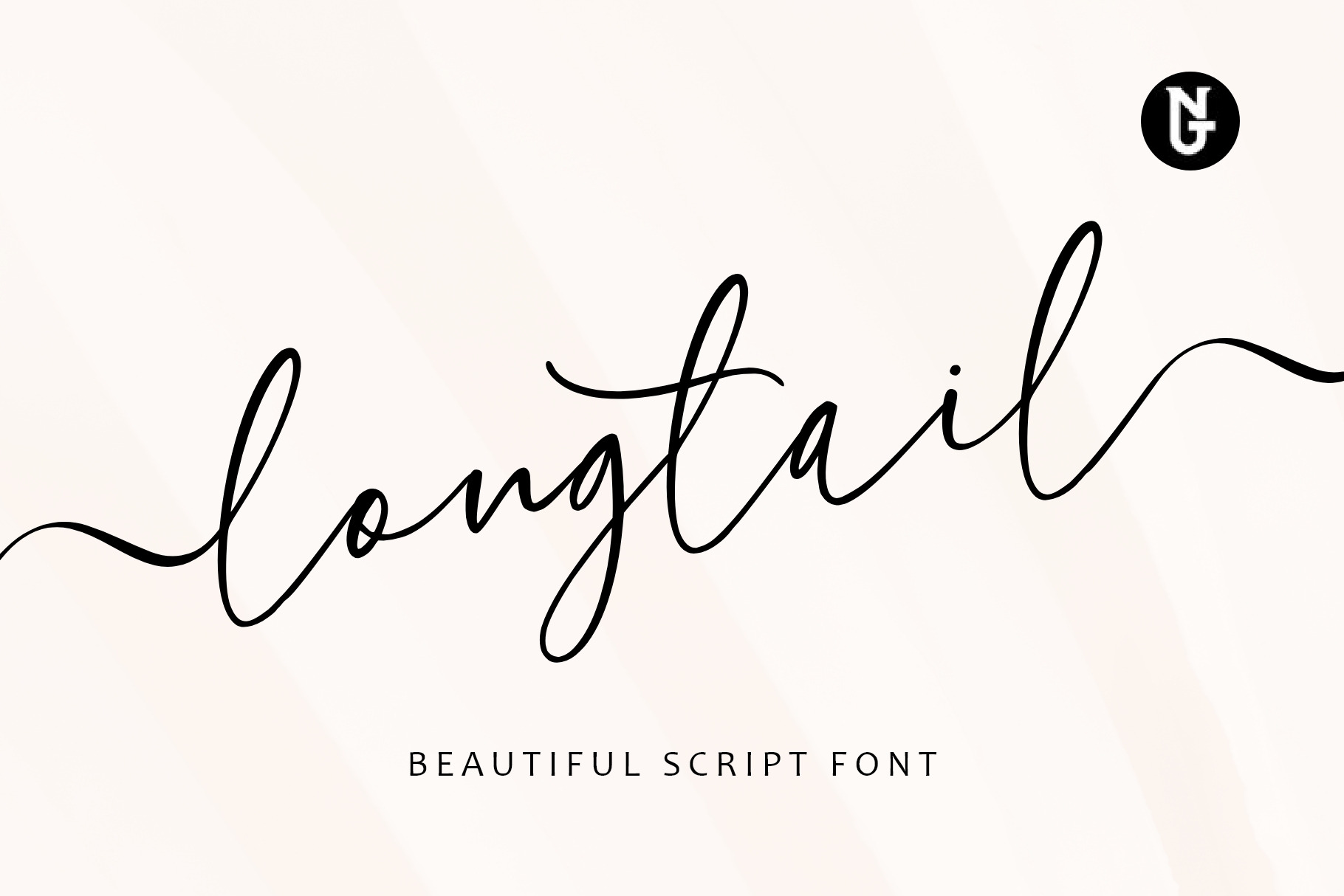
Longtail Script Font
longtail is a modern calligraphy font with handwriting, a captivating flow. It's perfect for wedding invitations, and cards.
longtail includes a full set of beautiful uppercase and lowercase letters, which will be perfect for all kinds of your printing techniques such as embroidery, laser cut, gold foil, etc.